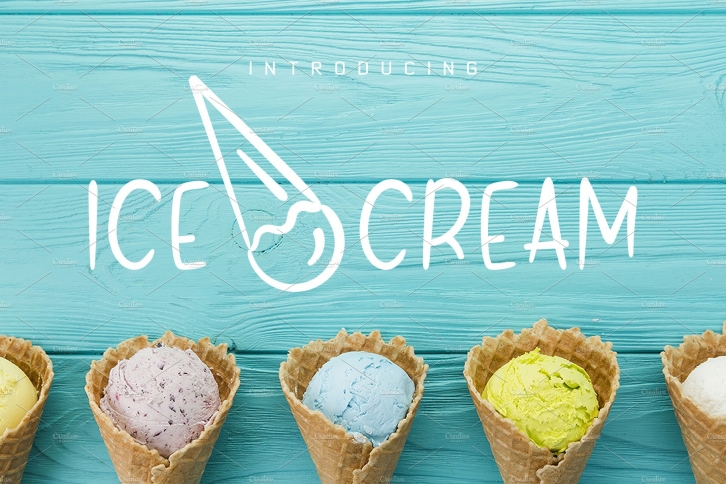
Hello summer! Introducing cute handwriting Brush Font and Ice Cream Pack. This pack includes icons, cards and seamless patterns. I decided to create in line, color and brush styles. Painted in white and pastel blue and pink colors. This collection is perfect for preparing printed paper, fabric food products and all other great things.
ICE CREAM FONT INCLUDED:
- Uppercase letters
- Lowercase letters
- Symbols